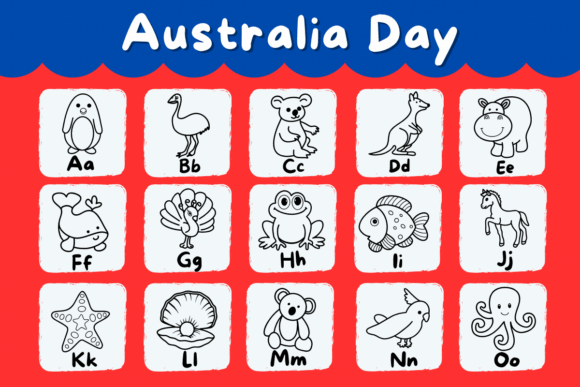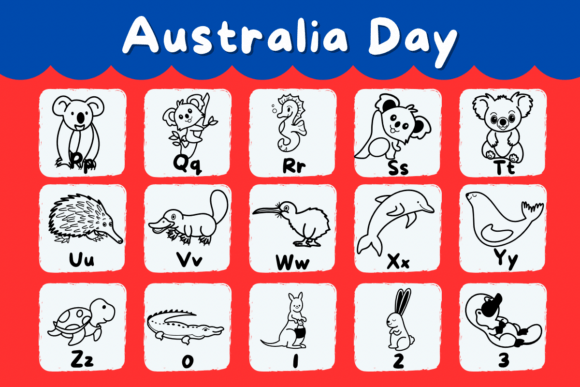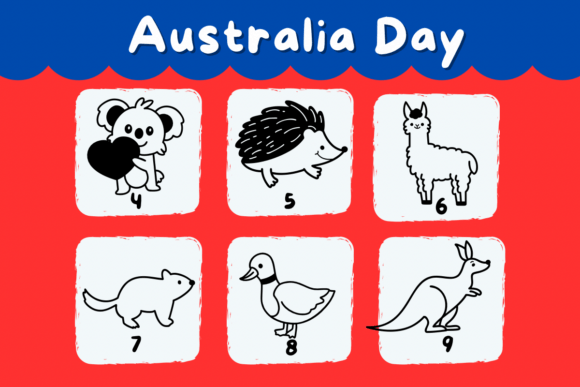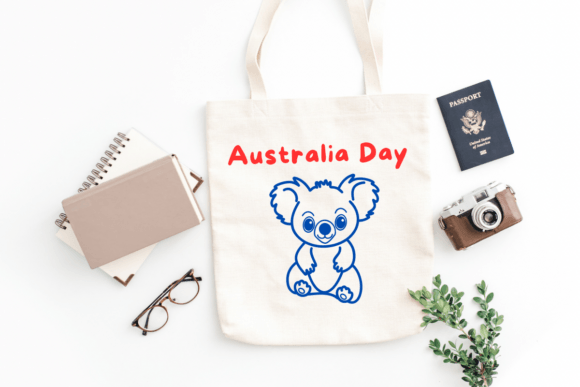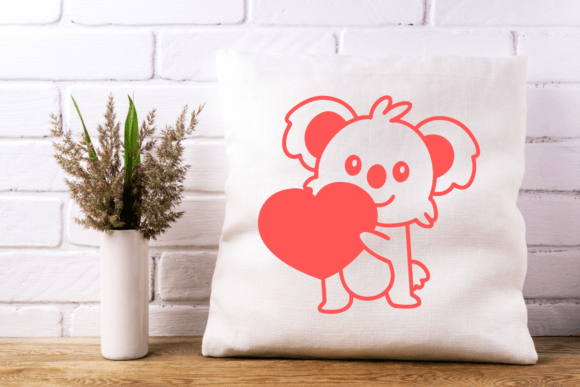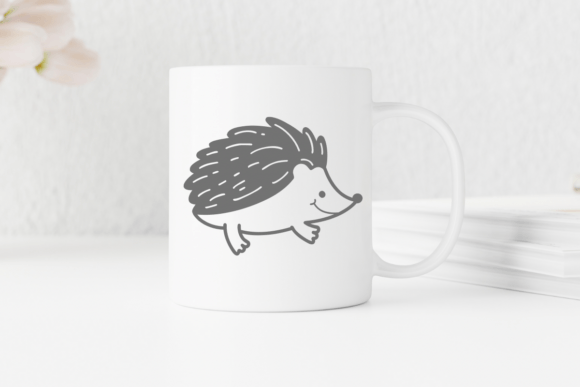
Australia Day Font: A Fun and Creative Way to Celebrate
Australia Day is just around the corner, and what better way to celebrate than with a unique and playful font that showcases the country’s iconic animals? Introducing the Australia Day Font, a fun and creative dingbat font that features images of Australian animals. Each letter or symbol is decorated with cute and recognizable animals like kangaroos, koalas, and wombats, making it a playful way to celebrate Australia Day.
What is the Australia Day Font?
The Australia Day Font is a specially designed dingbat font that replaces traditional letters and symbols with images of Australian animals. The font features a range of adorable animals, including kangaroos, koalas, wombats, and more. Each image is carefully crafted to be instantly recognizable, making it perfect for designers and crafters looking to add a touch of Aussie charm to their projects.
The Australia Day Font is incredibly easy to use and can be incorporated into a variety of projects, including:
- Party invitations and decorations
- Craft projects, such as card making and scrapbooking
- Digital art and illustrations
- Web graphics and designs
Features of the Australia Day Font
The Australia Day Font has a range of features that make it perfect for designers and crafters, including:
- Unique and playful designs featuring Australian animals
- Instantly recognizable images, perfect for creating eye-catching designs
Benefits of Using the Australia Day Font
Using the Australia Day Font can add a touch of fun and creativity to your designs. Here are just a few benefits of using this unique font:
- Add a touch of Aussie charm to your designs
- Create eye-catching and engaging graphics and posts
- Perfect for Australia Day celebrations and events
- Can be used for a range of projects, from party decorations to digital art
Tips and Inspiration for Using the Australia Day Font
Here are a few tips and inspiration ideas for using the Australia Day Font:
- Use the font to create a custom Australia Day party invitation or decoration
- Incorporate the font into your social media graphics and posts to celebrate Australia Day
- Use the font to create a range of craft projects, such as cards and gift tags
- Experiment with different design software and techniques to create unique and eye-catching designs
The Australia Day Font is a fun and creative way to celebrate Australia Day. With its unique and playful designs featuring Australian animals, it’s perfect for designers and crafters looking to add a touch of Aussie charm to their projects. Whether you’re creating party decorations, social media graphics, or craft projects, this font is sure to bring a smile to your face and a touch of Australian fun to your designs.